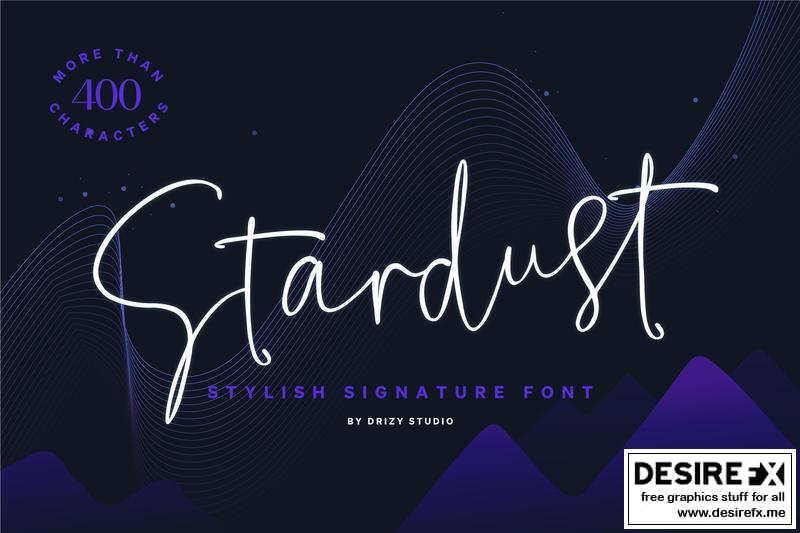
Stardust BSXMSSQ
Stardust stylish signature font from Drizy Studio. Perfect for gorgeous logo name, titles etc.
Stardust Features : Uppercase, Lowercase, Numeral, Multilingual, Ligature